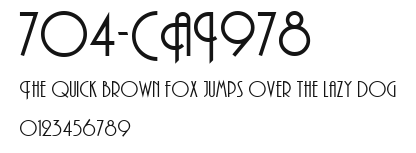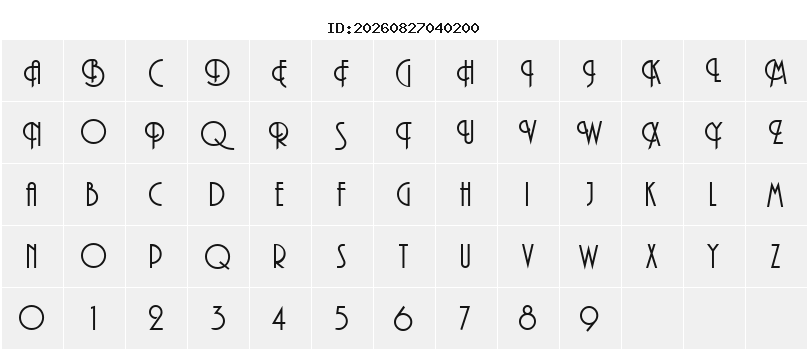
704-CAI978 Preview
• Font Name: 704-CAI978
• Font ID: 704-CAI978:Version 1.00
• Full Font Name: 704-CAI978
• Version: Version 1.00 August 16, 1991, initial release
• PostScript Name: 704-CAI978
• Character Count: 145
About 704-CAI978.ttf
704-CAI978.ttf is a modern, elegant sans-serif font designed for ultimate readability and visual harmony. Perfect for branding, headlines, web design, and print materials.